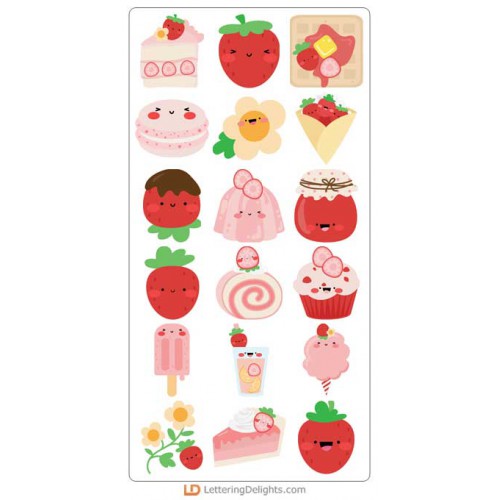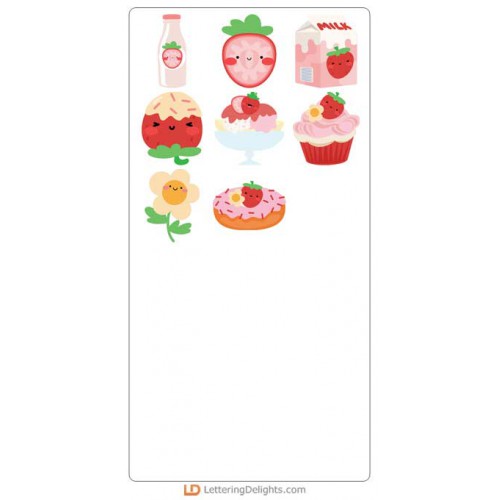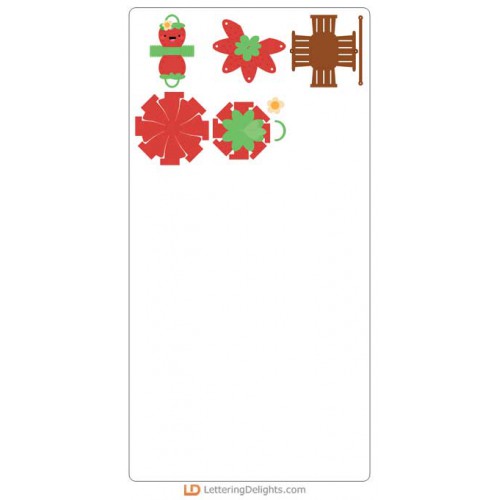
Strawberry Shortcake - Big Bundle
This adorable collection features strawberry treats,eats and emojis. Perfect for cards,crafts, gifts, decor, planner stickers, classrooms, scrapbooking and more!
ZP Side Hustle - FN
This fun and whimsical font has a very carefree and silly feel...
ZP Side Hustle Bold - FN
This fun and whimsical font has a very carefree and silly feel...
ZP Krabapple - FN
This fun, hand-written script is a casual cursive with heavy-weight lines...
ZP Krabapple Bold - FN
This fun, hand-written script is a casual cursive with heavy-weight lines...
ZP Mandatory Light - FN
This youthful, sans serif is simple, youthful, and a bit squatty...
ZP Mandatory - FN
This youthful, sans serif is simple, youthful, and a bit squatty...
ZP Mandatory Bold - FN
This youthful, sans serif is simple, youthful, and a bit squatty...
DB Strawberry Shortcake - DB
This adorable doodlebat font features 36 strawberry treats, eats and puns. Perfect for cards,crafts,..
DB Strawberry Emojis - DB
This adorable doodlebat font features 26 strawberry emojis. Perfect for cards,crafts, gifts, decor, ..
Strawberry Shortcake - GS
This adorable graphic set features 26 strawberry treats and eats. Perfect for cards,crafts, gifts, d..
Strawberry Shortcake - CS
This adorable cuttable graphic set features 26 strawberry treats and eats. Perfect for cards,crafts,..
Strawberry Shortcake - Emojis - GS
This adorable graphic set features 26 strawberry emojis. Perfect for cards,crafts, gifts, decor, pla..
Strawberry Shortcake - Emojis - CS
This adorable cuttable graphic set features 26 strawberry emojis. Perfect for cards,crafts, gifts, d..
Strawberry Shortcake - CP
Create adorable strawberry gift boxes and gift bags with this simple cut project set...
Strawberry Shortcake - AL
This fun strawberry alphabet coordinates with our Strawberry Shortcake Collection...
Strawberry Shortcake - PP
This fun paper pack coordinates with our Strawberry Shortcake Collection...